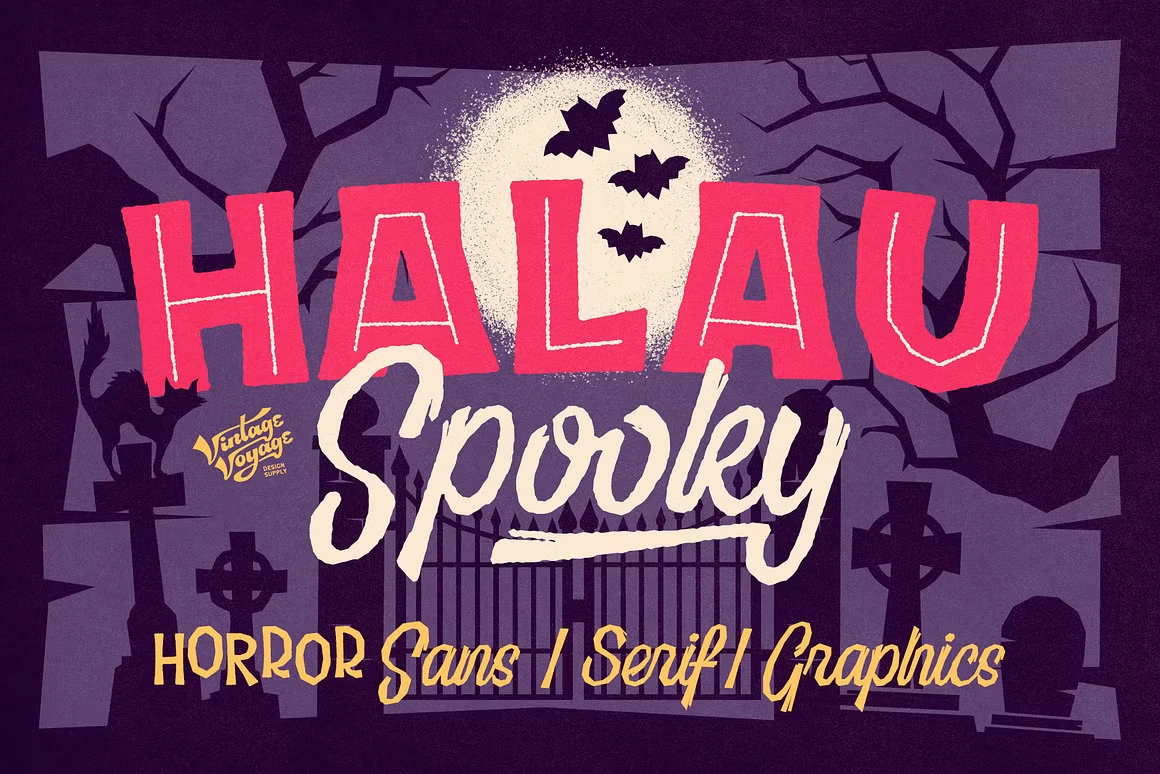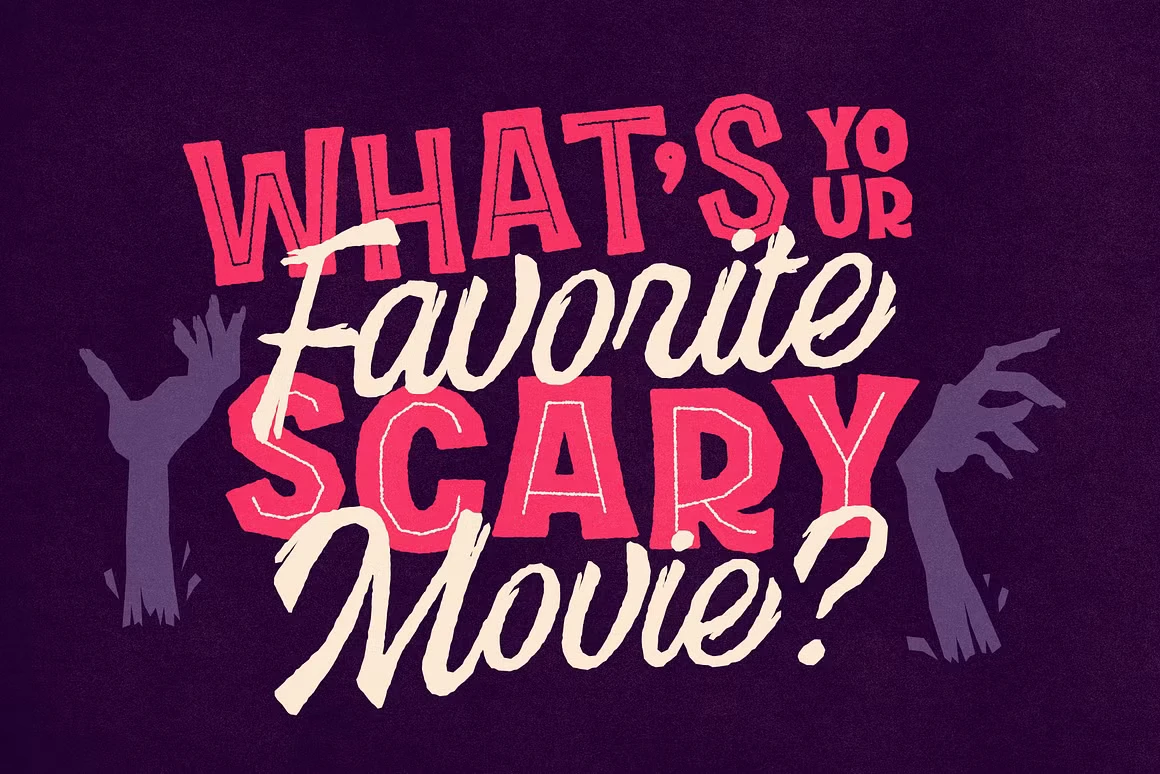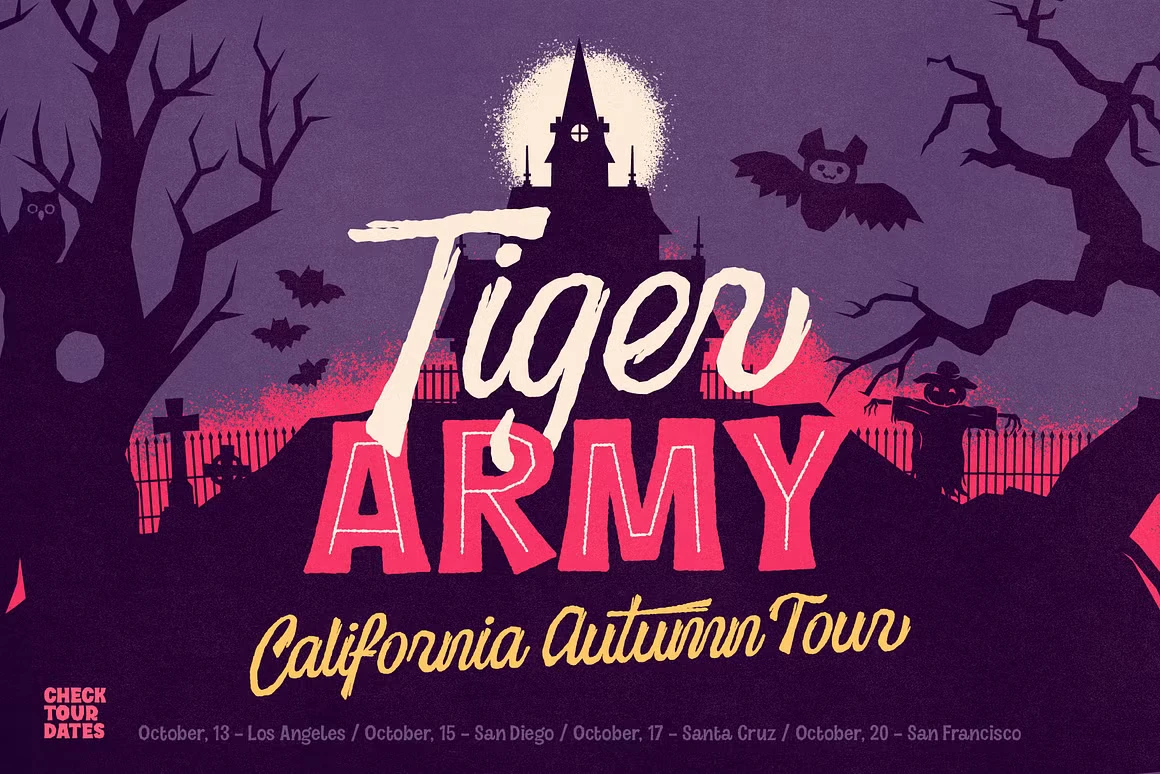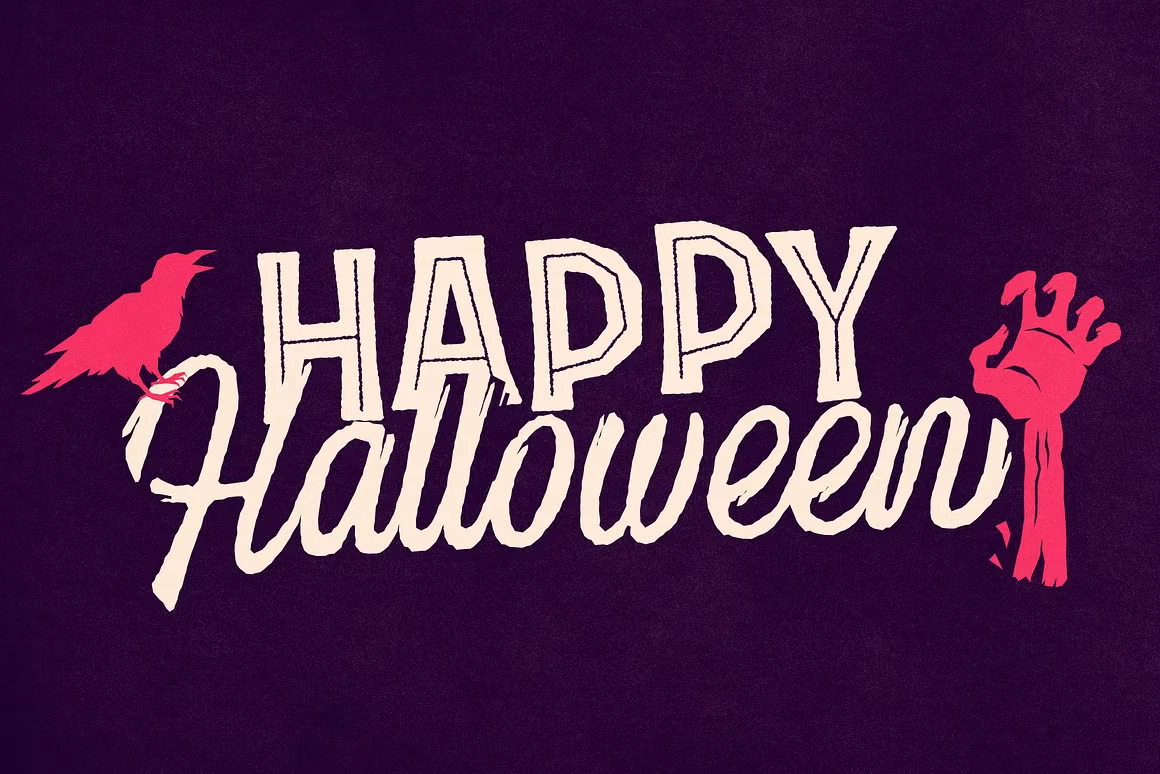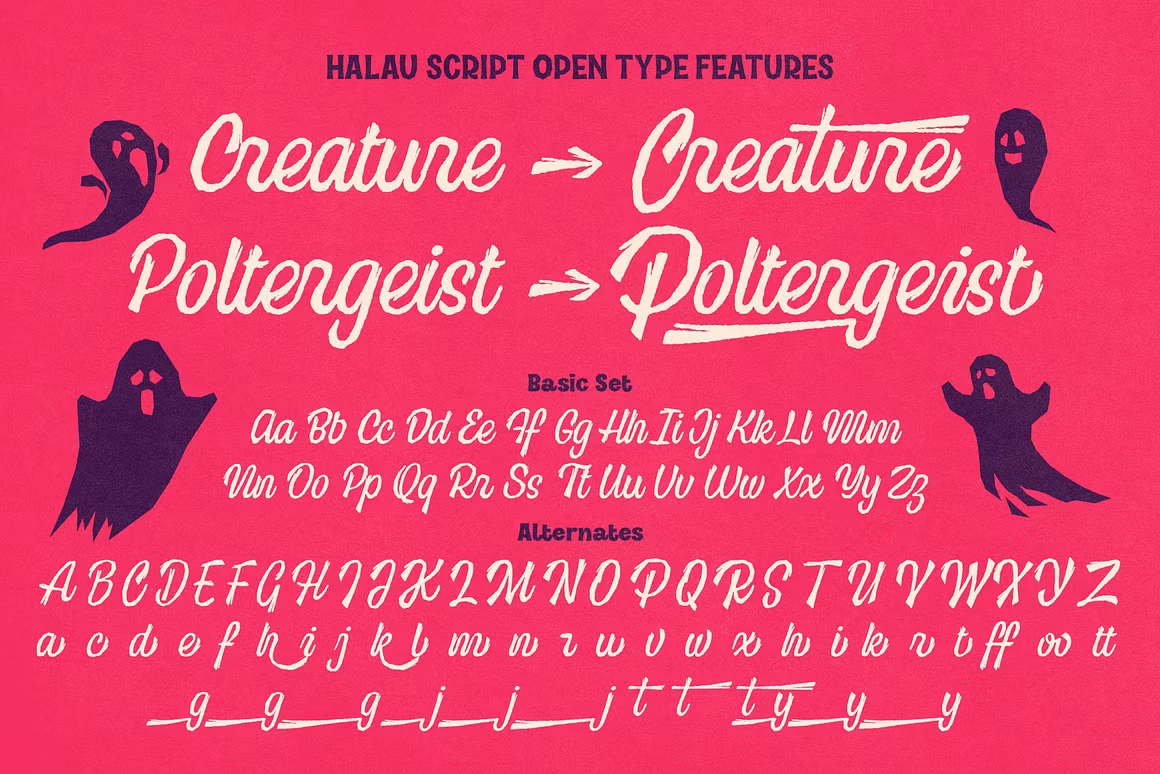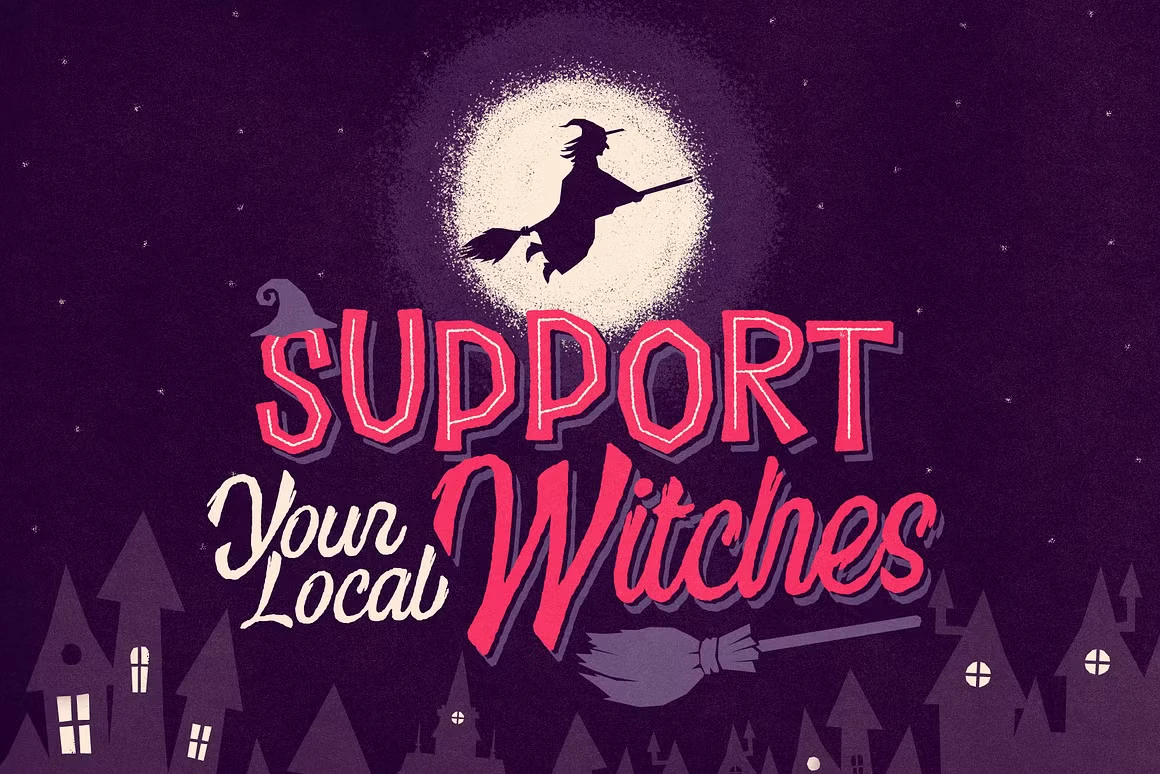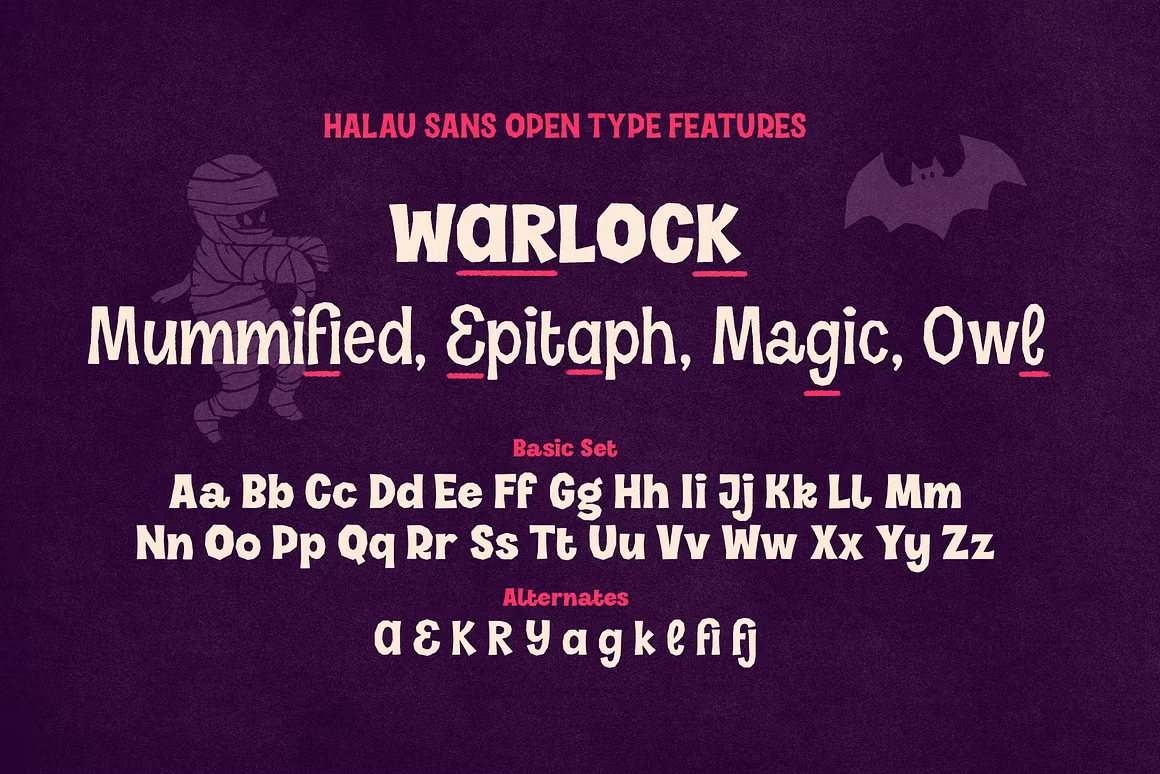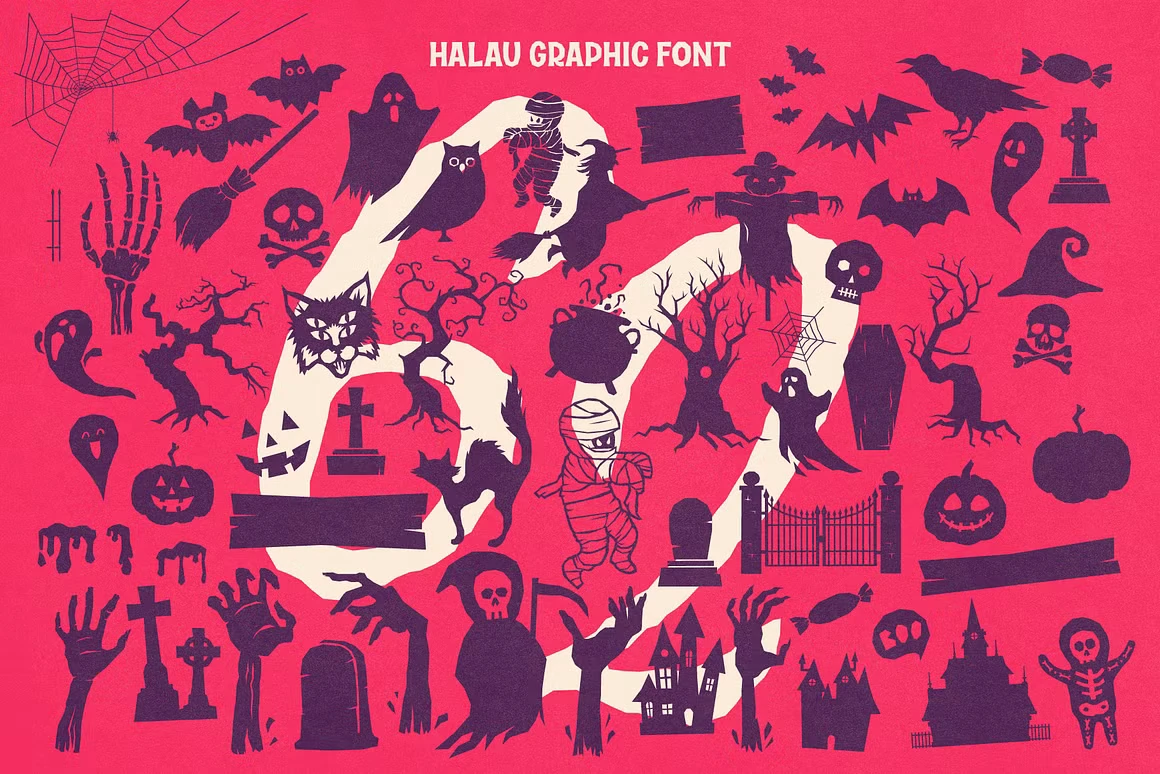
Halau Spooky Font Family
Halau Spooky is a playful yet eerie type collection made for Halloween and spooky-themed events. Designed for headlines, it also holds up well at smaller subhead sizes thanks to its open shapes. With a range of stylistic alternates, it brings variety and flair to any design. Perfect for party invitations, food packaging, theater posters, and projects that call for a touch of the devilishly dark.
• Common Ligatures
• Fractions
• Stylistic Sets
• Superscript